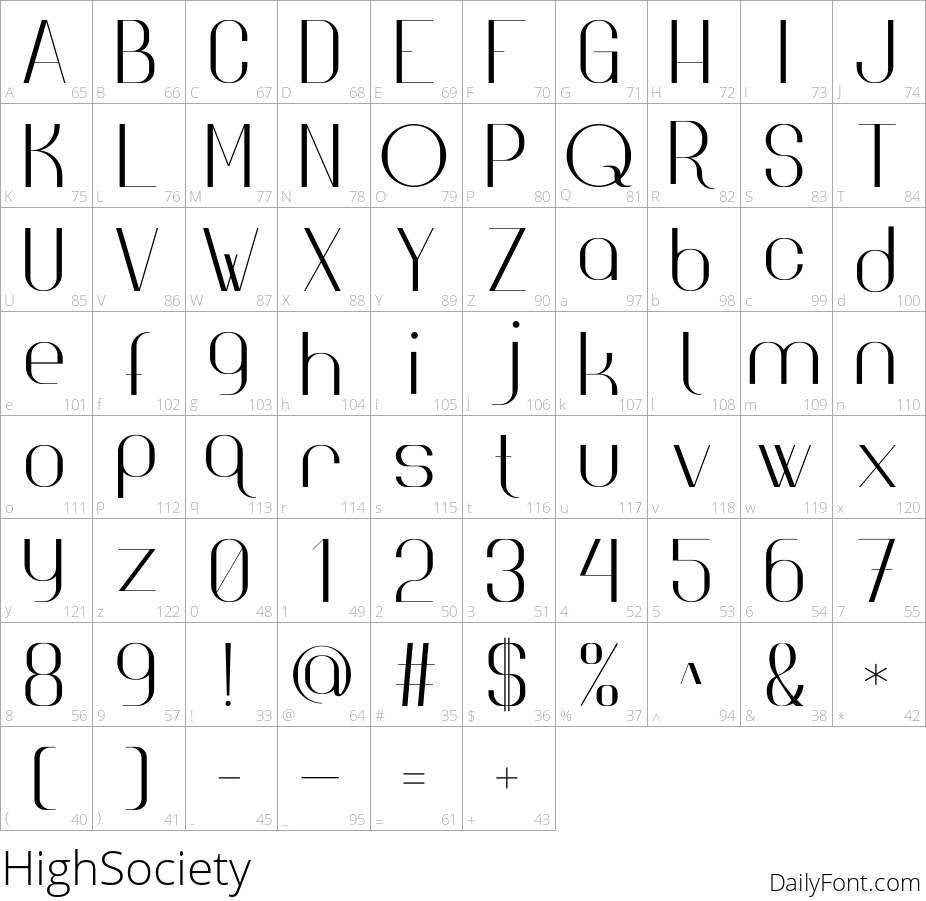
High Society by Thor Christopher Arisland
Highsociety is a minimalist sans-serif font characterized by its simple vertical stress. Ideal for modern designs, this versatile typeface adds elegance and readability to any project.